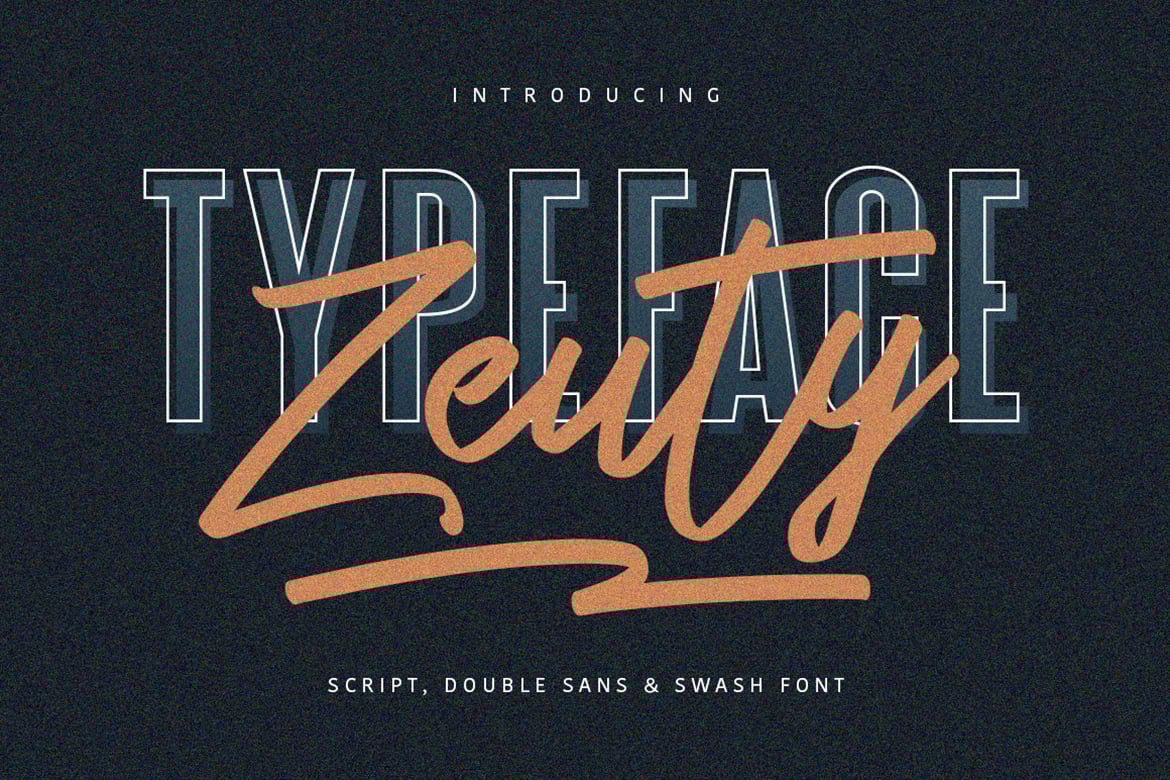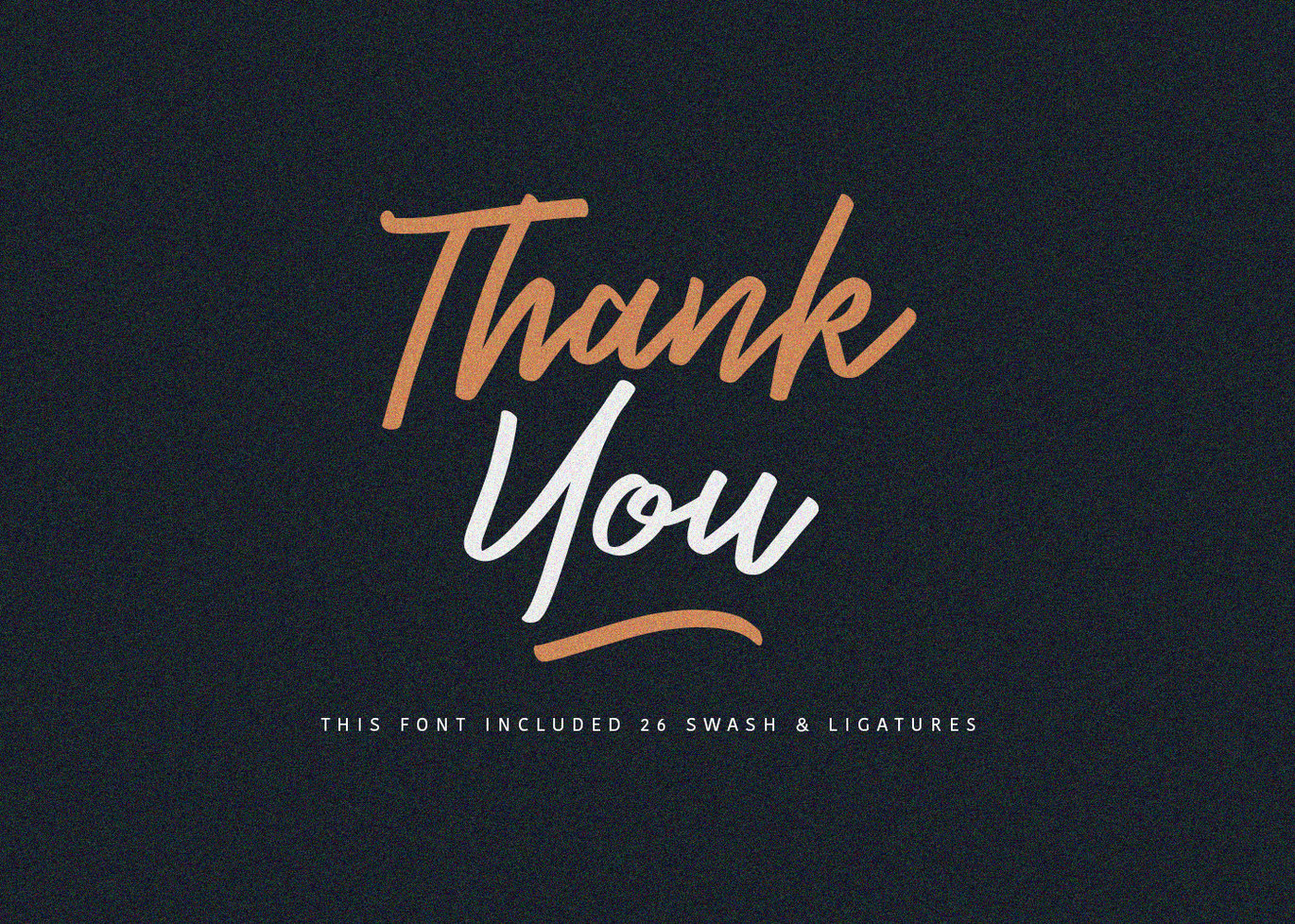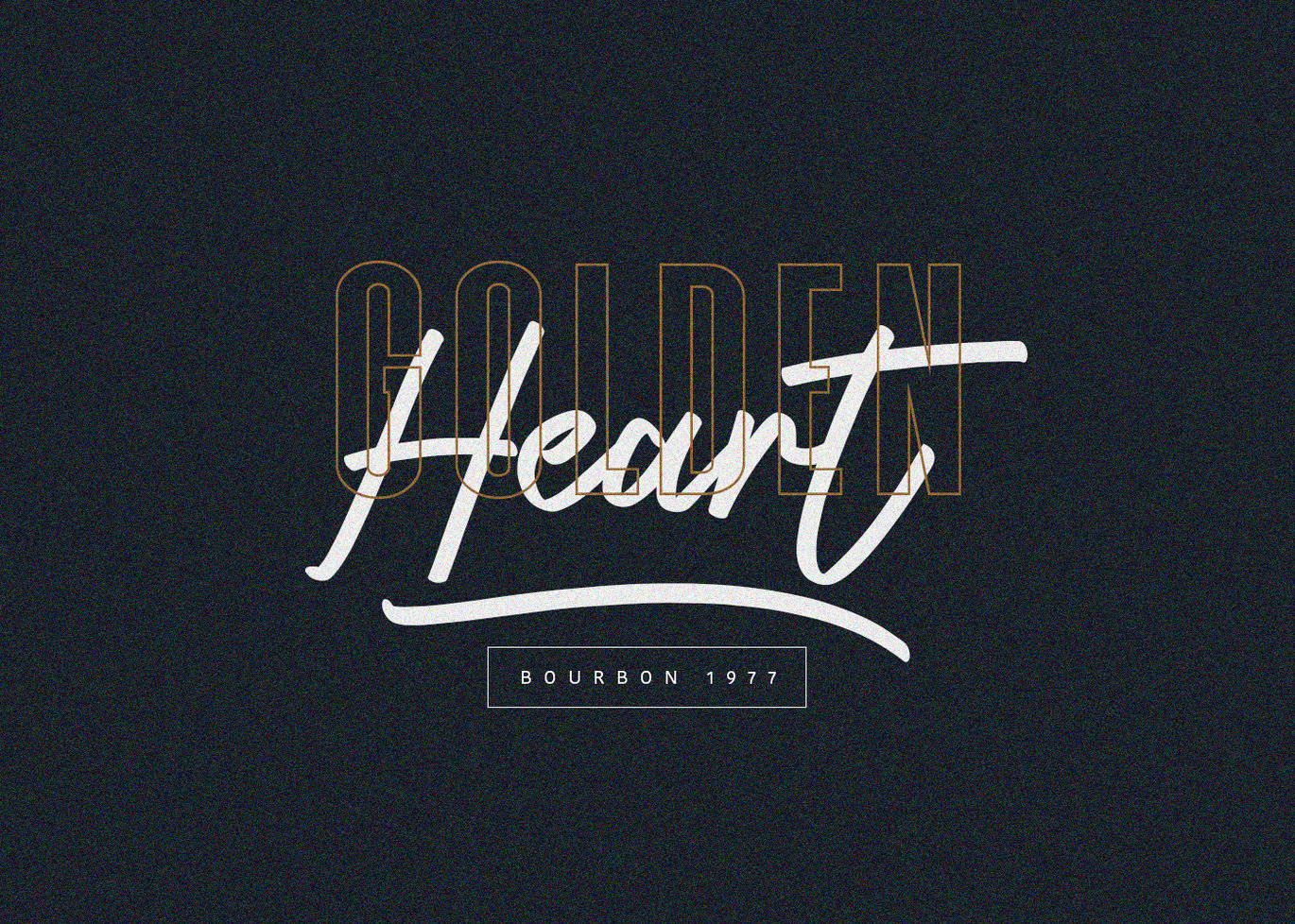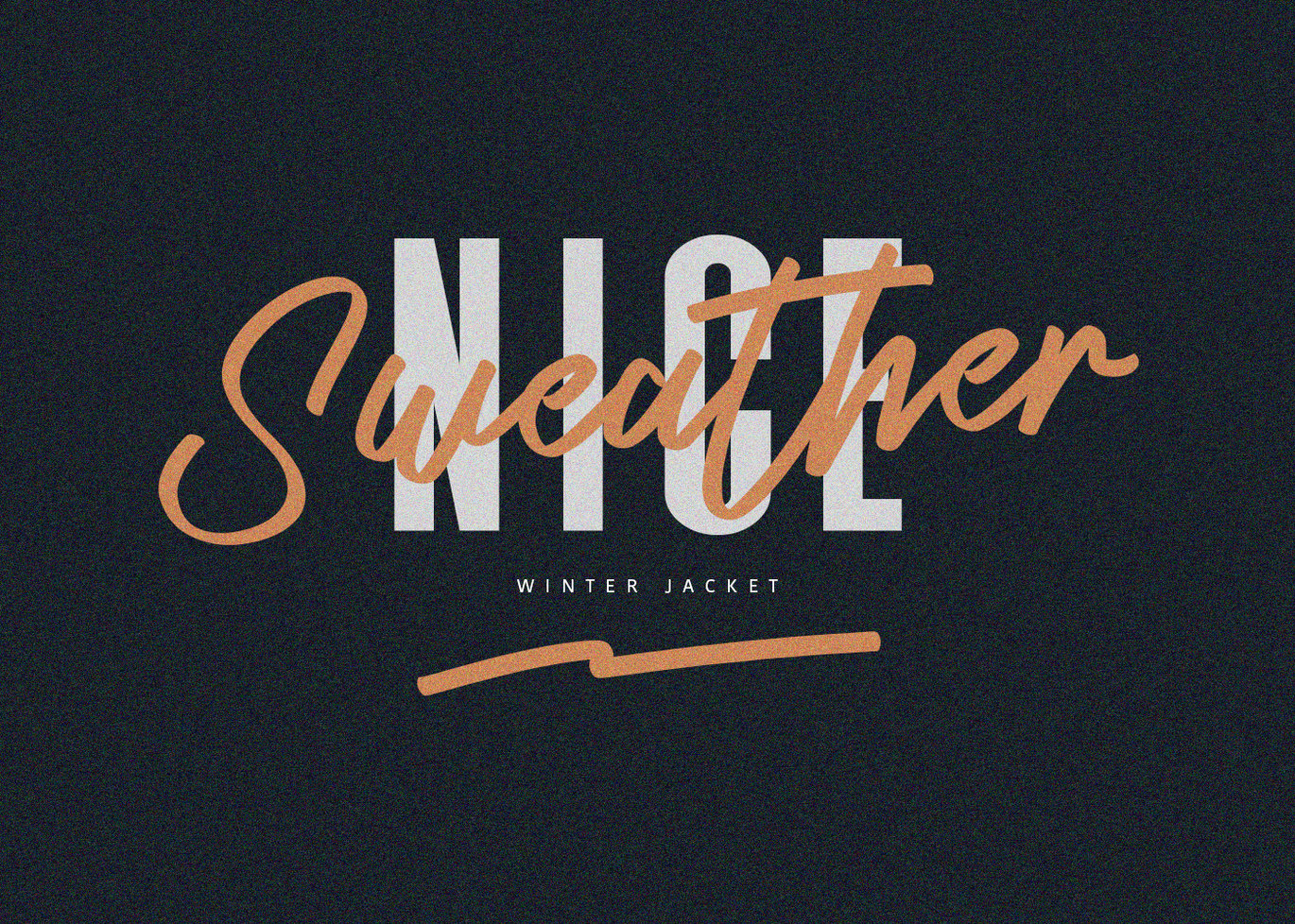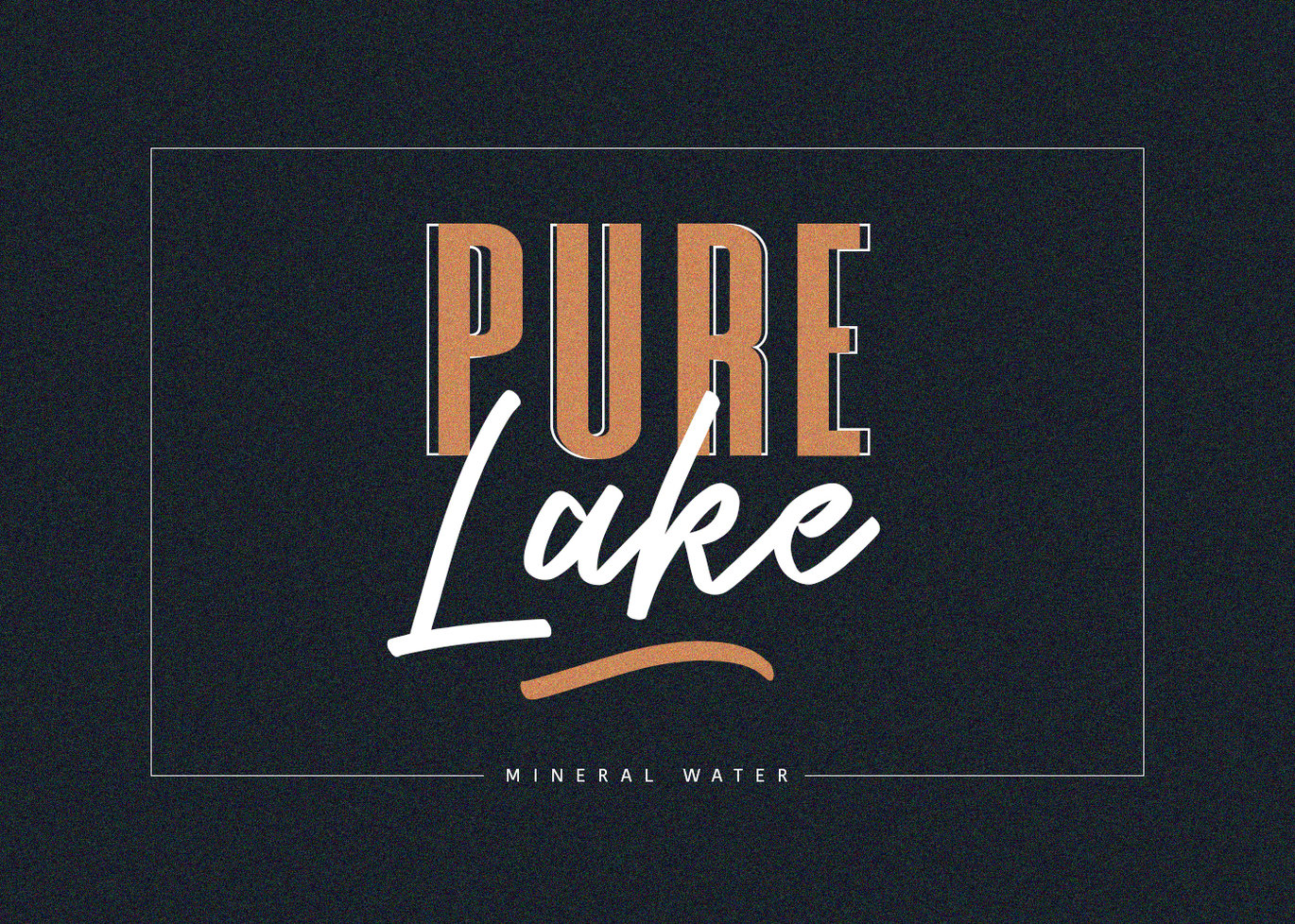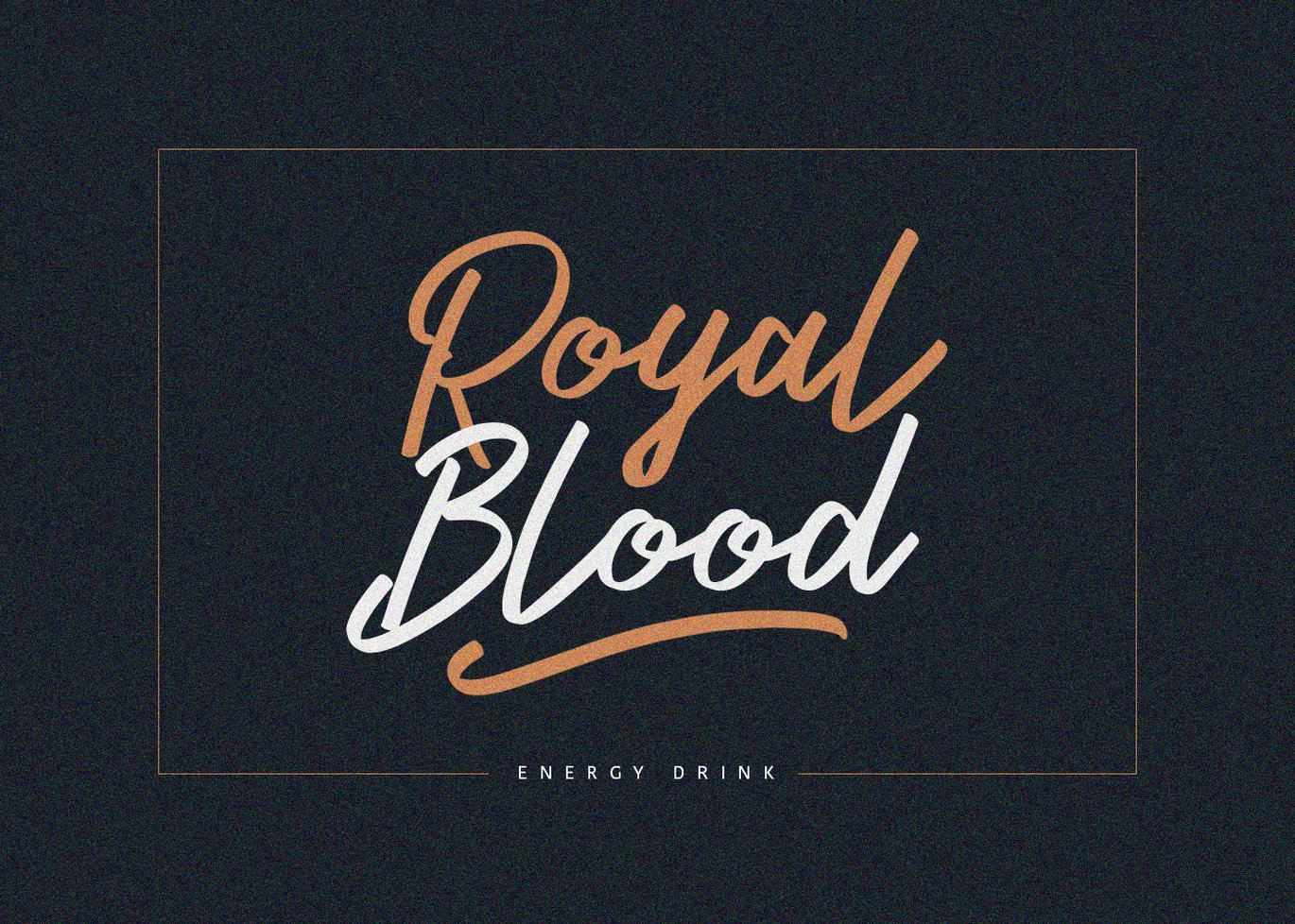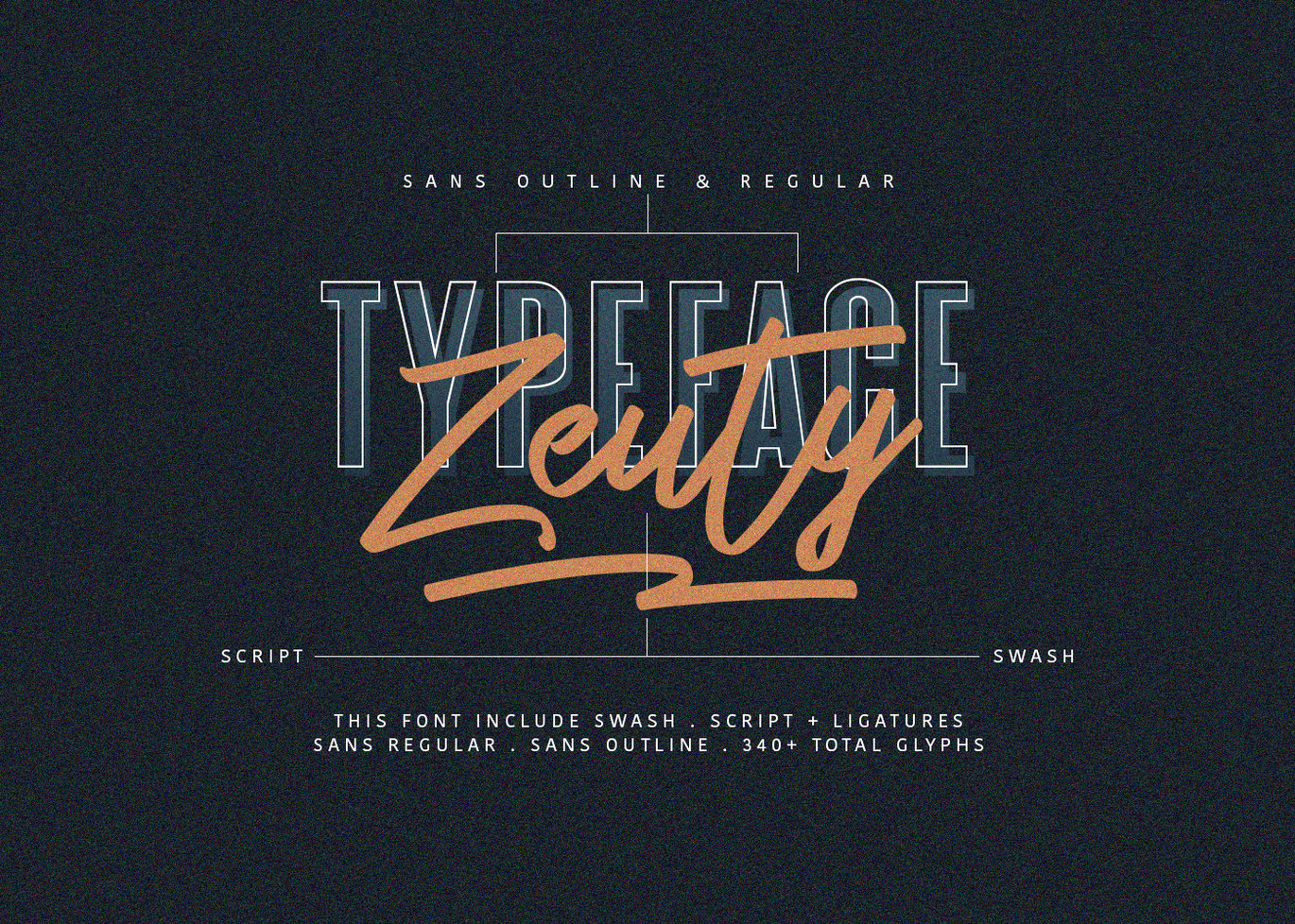
Zeuty Font Collection
Give your designs an authentic handcrafted feel. Zeuty Typeface Collection is perfectly suited to signature, stationery, logo, typography quotes, magazine or book cover, website header, clothing, branding, packaging design and more.